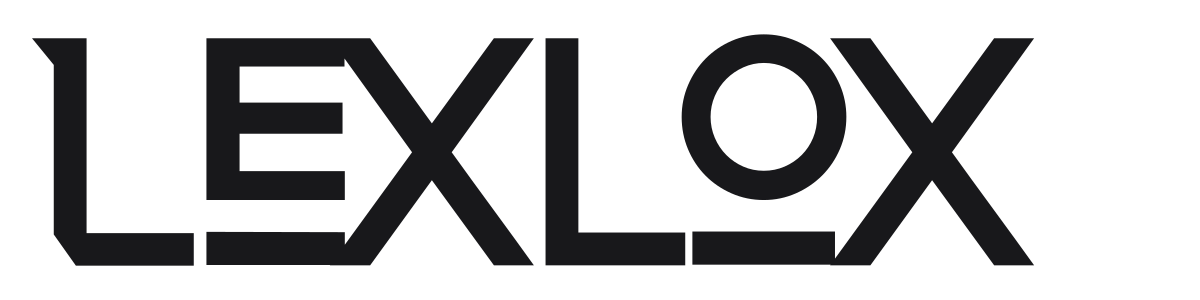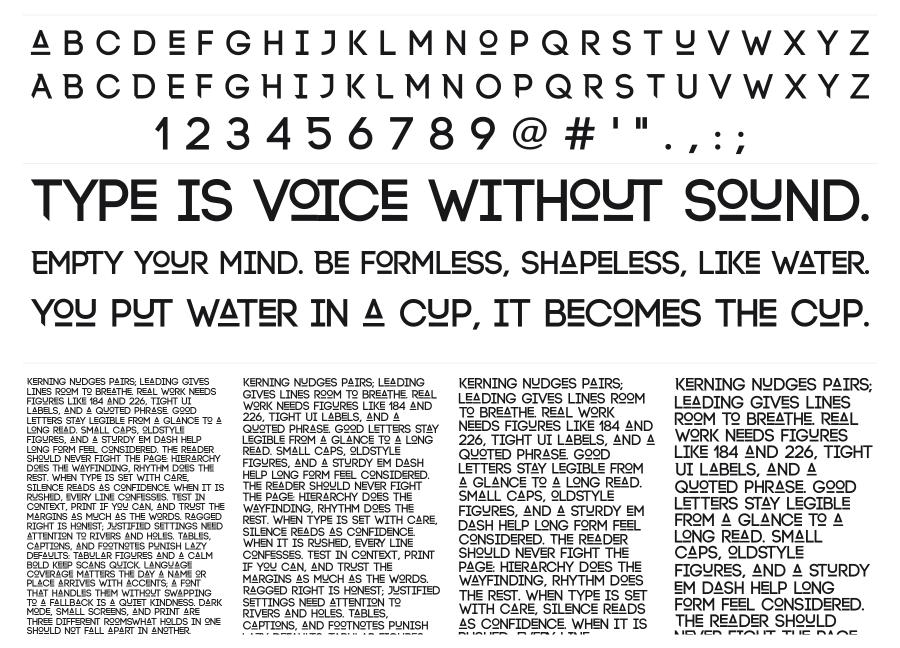
Lexlox
Lexlox is a geometric display sans built around a single striking idea: horizontal notch cuts slicing through the vertical stems of every character. The result feels simultaneously retro and futuristic, somewhere between Bauhaus modularity and 1970s sci-fi titles. It commands attention at large sizes and works best in short, punchy headlines or logotype contexts.